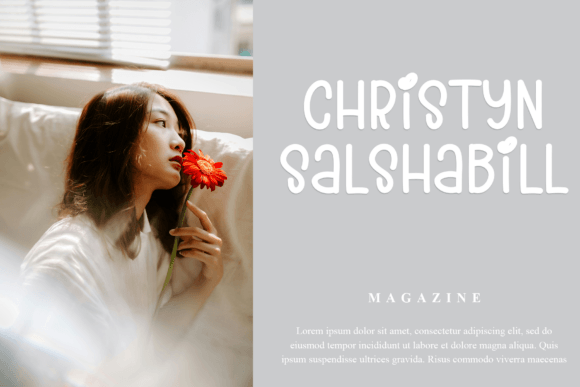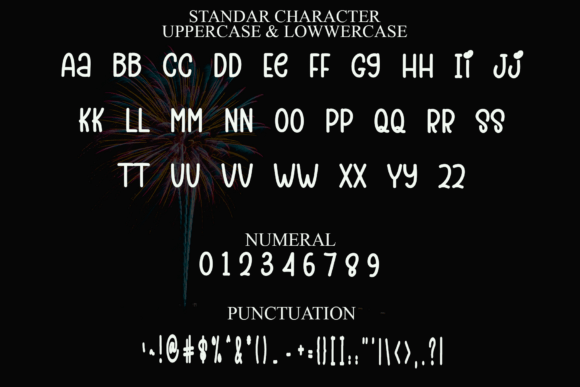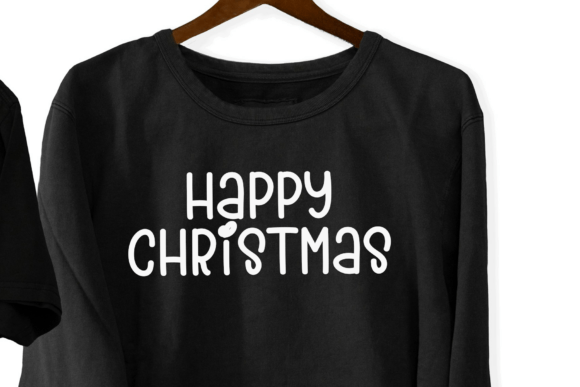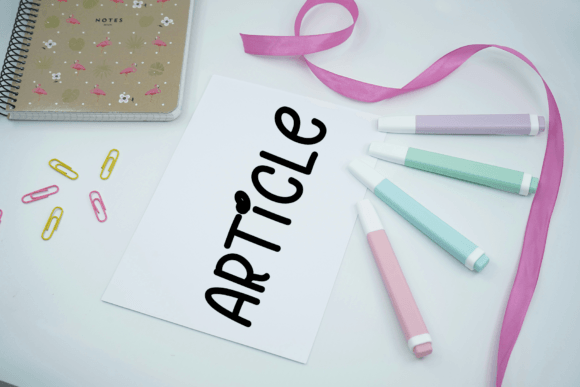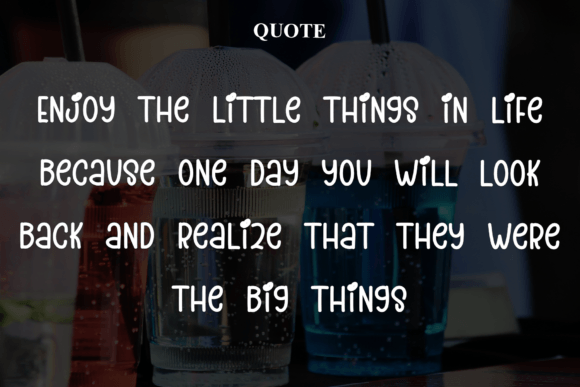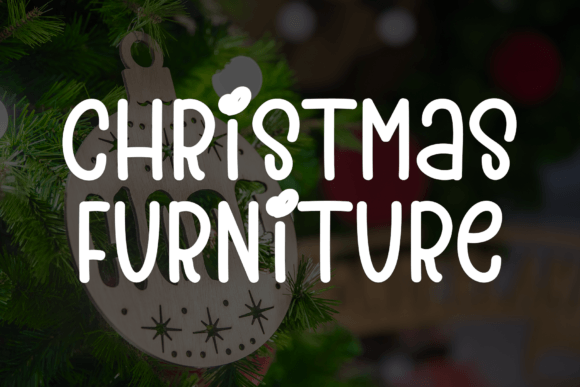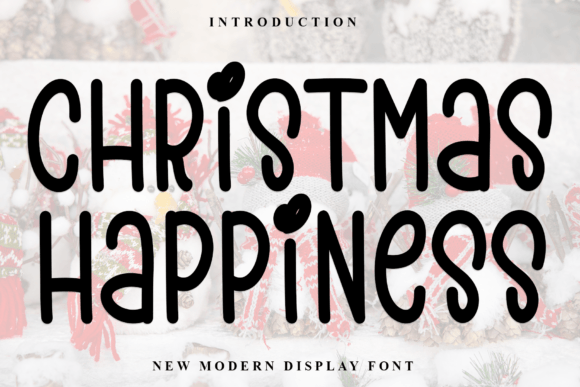
Christmas Happiness Font: Spread Joy and Cheer with this Festive Design
As the holiday season approaches, designers and crafters are on the lookout for the perfect font to capture the spirit of Christmas. Look no further than the “Christmas Happiness” font, a joyful and festive design that is sure to bring warmth and cheer to any project. In this article, we’ll take a closer look at this delightful font and explore how it can add a touch of magic to your holiday creations.
What is Christmas Happiness Font?
“Christmas Happiness” is a modern, handwritten font that embodies the joy and festivity of the holiday season. With its clean lines, simple shapes, and elegant flair, this font is perfect for adding a personal touch to your holiday designs. The design features a unique blend of traditional and contemporary elements, making it a versatile choice for a wide range of projects, from holiday cards and invitations to festive posters and social media graphics.
Key Features of Christmas Happiness Font
- Handwritten style: The Christmas Happiness font features a beautiful, handwritten design that adds a personal touch to any project.
- Modern touch: The font’s modern elements give it a fresh and contemporary feel that’s perfect for today’s designs.
- Simple yet beautiful: The font’s simple shapes and clean lines make it easy to read and versatile for a wide range of projects.
- Festive spirit: The Christmas Happiness font captures the joy and cheer of the holiday season, making it perfect for holiday-themed designs.
How to Use Christmas Happiness Font in Your Designs
The Christmas Happiness font is incredibly versatile and can be used in a wide range of designs, including:
- Holiday cards and invitations: Add a personal touch to your holiday cards and invitations with this beautiful font.
- Festive posters and flyers: Use the Christmas Happiness font to create eye-catching posters and flyers that capture the spirit of the holiday season.
- Social media graphics: Add a touch of festive cheer to your social media graphics with this joyful font.
- Crafting projects: The Christmas Happiness font is perfect for crafters who want to add a personal touch to their holiday projects, such as scrapbooking, sewing, or woodworking.
Tips for Getting the Most Out of Christmas Happiness Font
Here are a few tips for getting the most out of the Christmas Happiness font:
- Experiment with colors: The Christmas Happiness font looks great in a variety of colors, from traditional red and green to more modern shades like blue and purple.
- Pair with other fonts: Try pairing the Christmas Happiness font with other fonts to create a unique and eye-catching design.
- Use in combination with graphics: The Christmas Happiness font looks great in combination with festive graphics, such as holly, snowflakes, or Christmas trees.
The Christmas Happiness font is a joyful and festive design that’s perfect for capturing the spirit of the holiday season. With its modern, handwritten style and simple yet beautiful design, this font is sure to bring warmth and cheer to any project. Whether you’re a designer or crafter, the Christmas Happiness font is a great choice for adding a personal touch to your holiday creations. So why not give it a try and spread some holiday cheer with this delightful font?